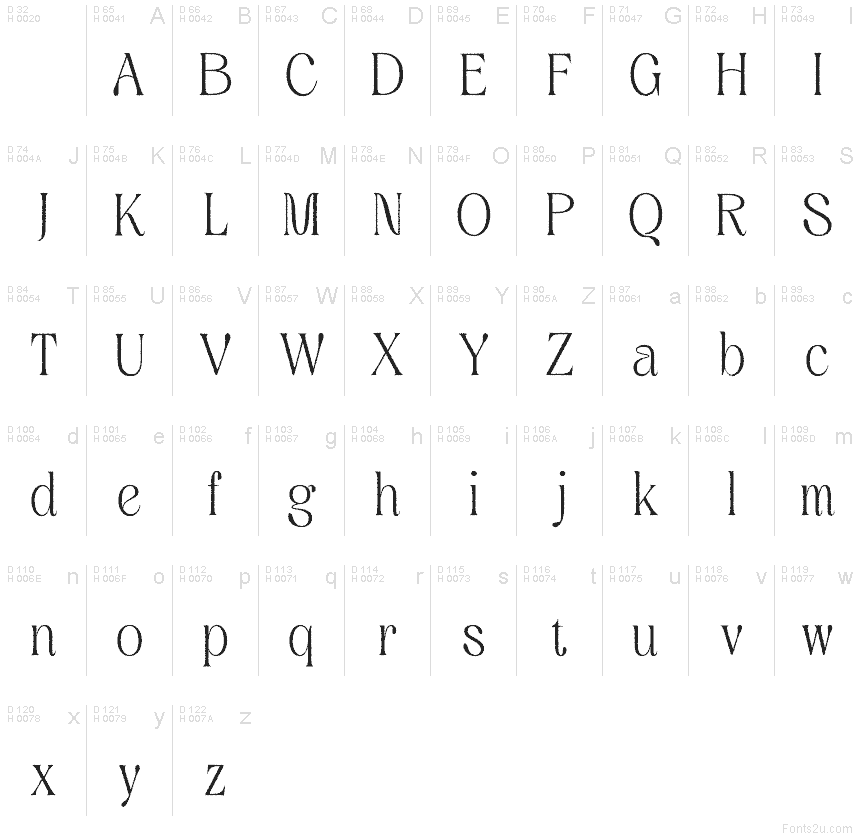
Quenza Rough Regular Demo
Quenza Rough font by Craft Supply Co. is a vintage serif typeface that combines modern elegance with artistic flair. This free font features gentle curves and a textured organic feel, inviting you to look at things differently. Its uniqueness relies on the classy and legible structure you can employ to communicate your professional and personal identity.
Give this font an ideal spot in book covers, magazine headers, invitation cards, certificates, packaging labels, menu scripts, flyers, brochures, or business cards. You can also use it for posters and social media posts or make it part of more general branding items like logos or slogans.